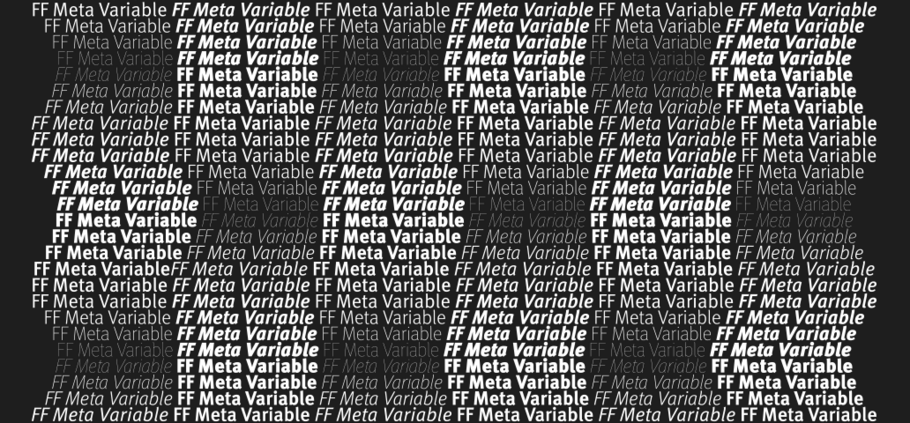
Variable Fonts 101: How to get started with variable fonts.
Variable Fonts.
“ A variable font is a single font that acts as many: all the variations of width and weight, slant, and other attributes can be contained in a single, highly efficient compressed font file. ”
Typography on the web has long been considered second to web page performance, leaving web designers unable to apply all but the most basic typographic principles to online content. Until now. With the recent emergence of the variable font format, designers can work with an entire font family as they do in print.
What is a variable font?
A variable font encapsulates the entire font family, not just one style or instance. With three out of the four major browsers already supporting variable fonts and the remainder soon to follow, the future is certainly bright for this new font technology. Explore the resources below and be ready to hit the ground running when it arrives.
What are the benefits of variable fonts?
Smaller file size
A variable font is a single font that acts as many: all the variations of width and weight, slant, and other attributes can be contained in a single, highly efficient compressed font file.
Only one file
With fewer HTTP requests for assets (font files) variable fonts offer an overall savings of data to download. While these freedoms allow us to become more expressive, some of the really interesting capabilities will help transform the reading experience itself.
Flexible design range
The typical scenario would be to constrain any given design to 3-5 different fonts to represent every aspect of a site’s design language and voice—including every permutation for body copy and headings. At its simplest implementation, variable fonts would give us the freedom to use additional weights/styles for every level of text.
Part 1: from TrueType GX to Variable Fonts.
Tom Rickner, veteran type designer, shares his personal role in the beginnings of type’s most exciting development in decades.
Part 2: from TrueType GX to Variable Fonts
Tom Rickner introduces Monotype’s first Variable font, available free on GitHub, and shares his research into potential use cases for variable fonts.